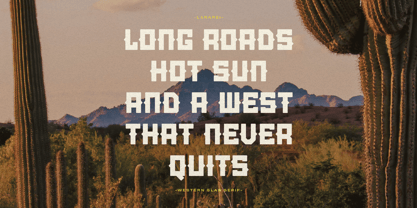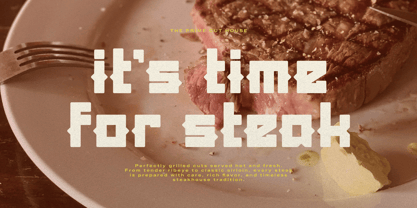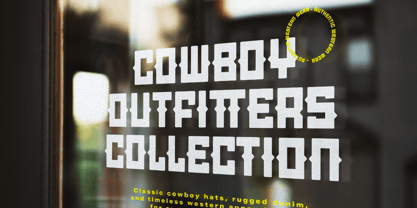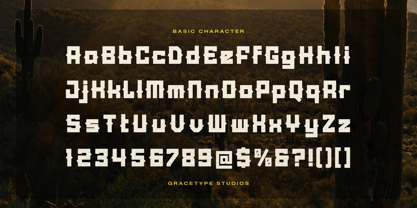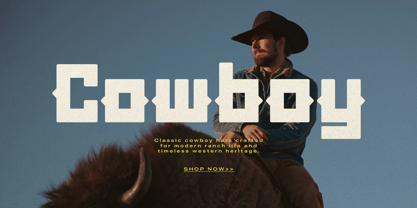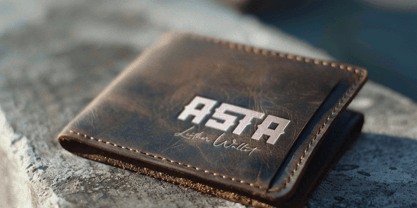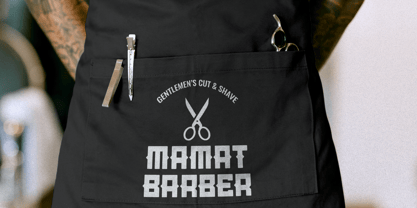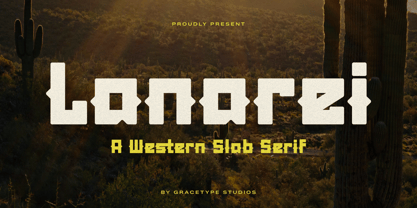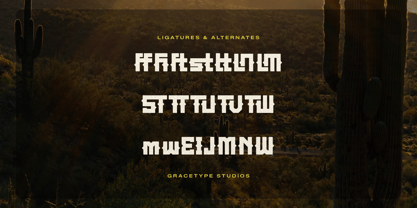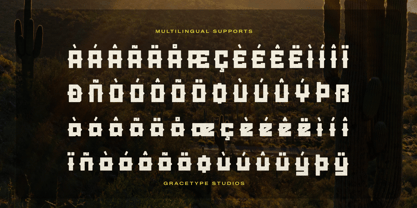
Lanarei
Lanarei | Western Slab Serif, from Gracetypestudio, suitable for any projects such as: logos, branding projects, homeware designs, product packaging, mugs, quotes, posters, shopping bags, t-shirts, book covers, name card, invitation cards, greeting cards, label, photography, watermark, special events, and all your other lovely projects that need a Slab Serif taste.